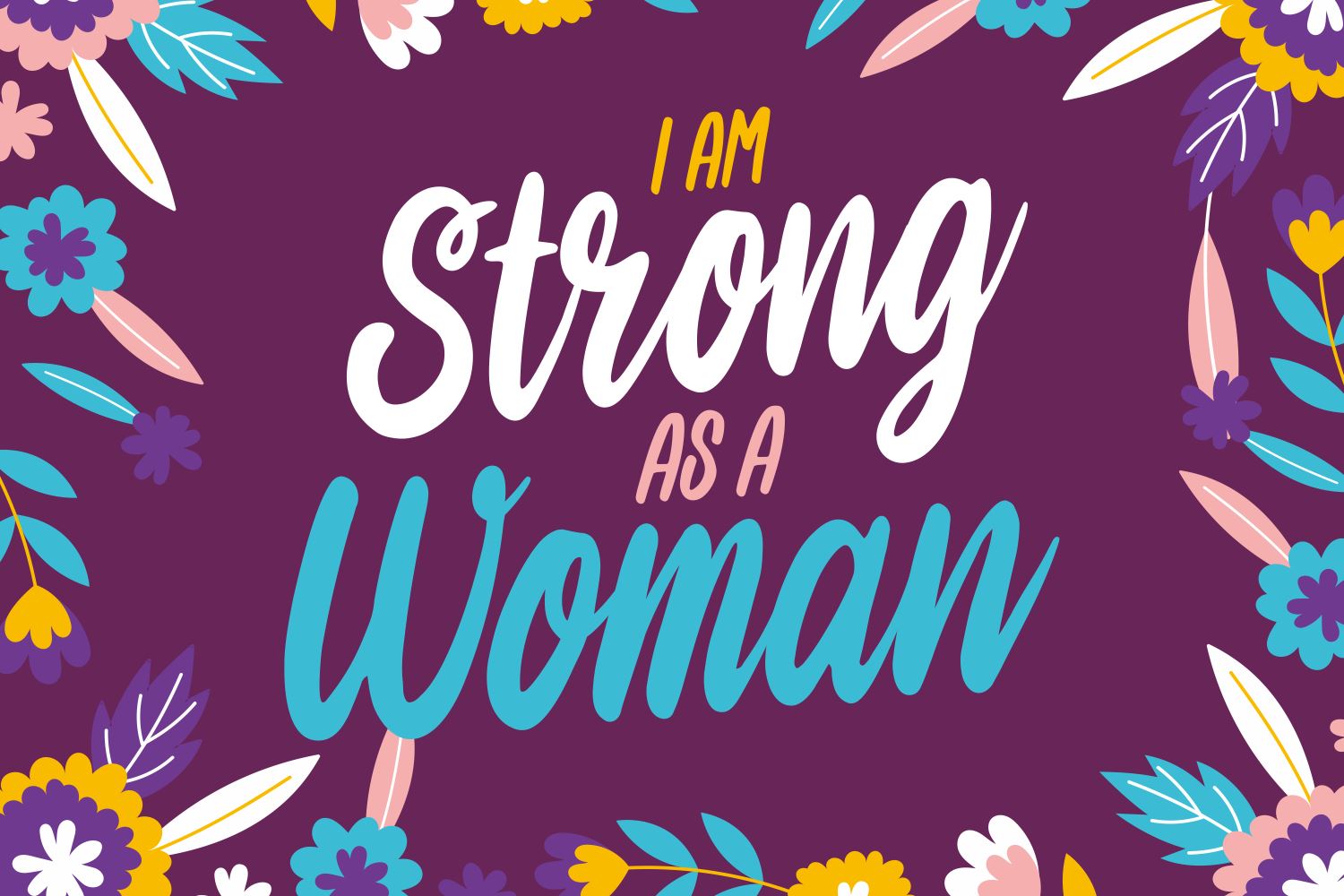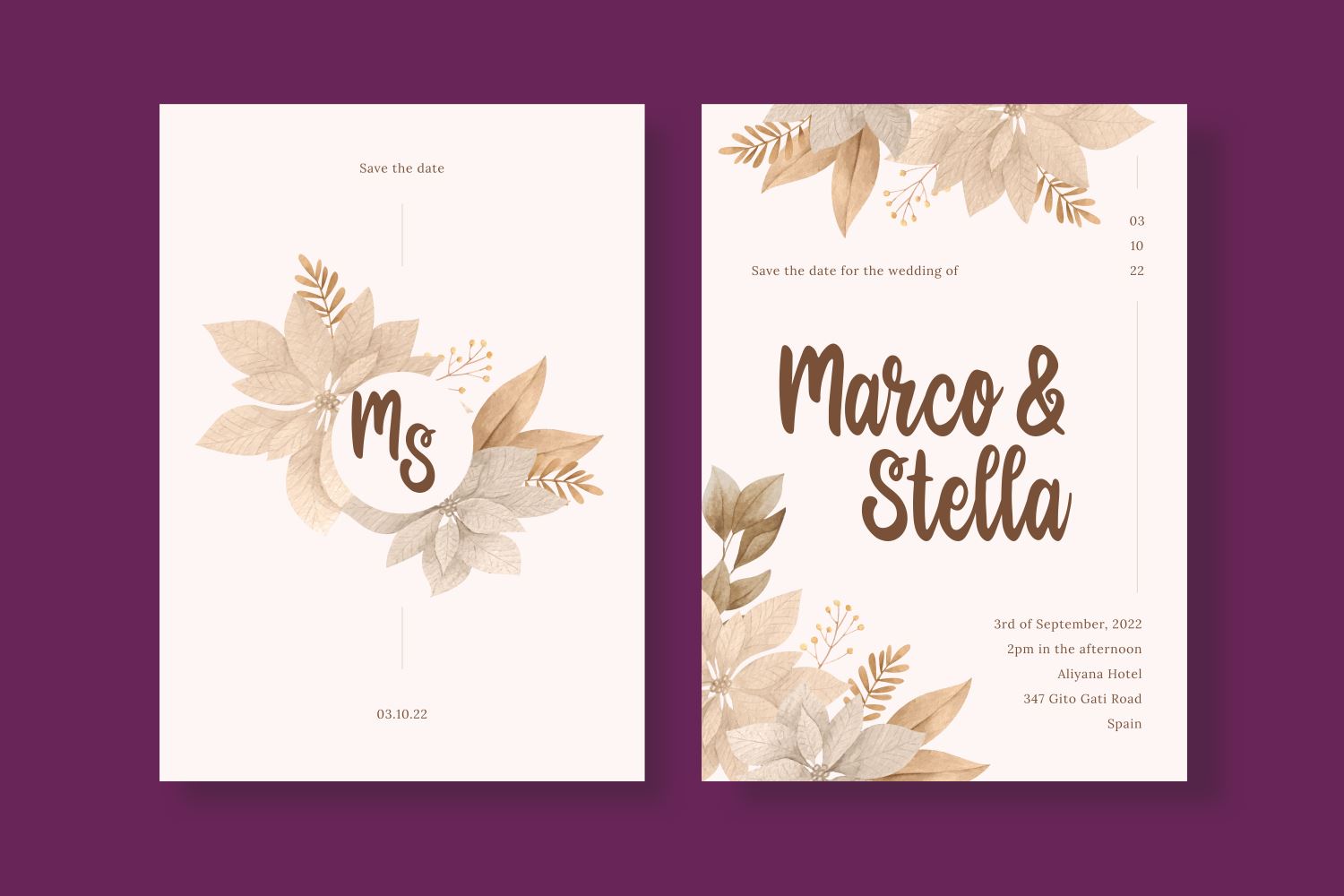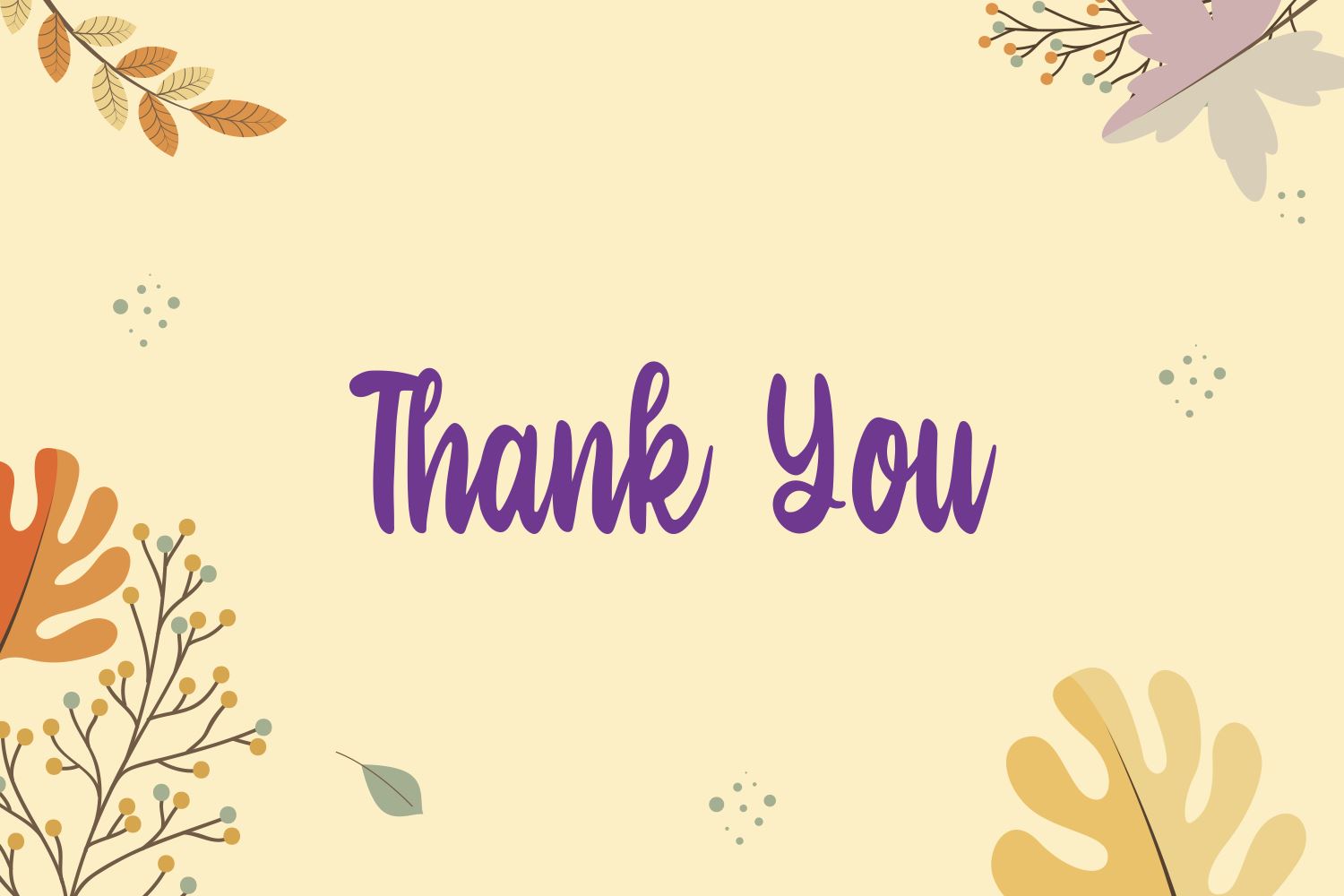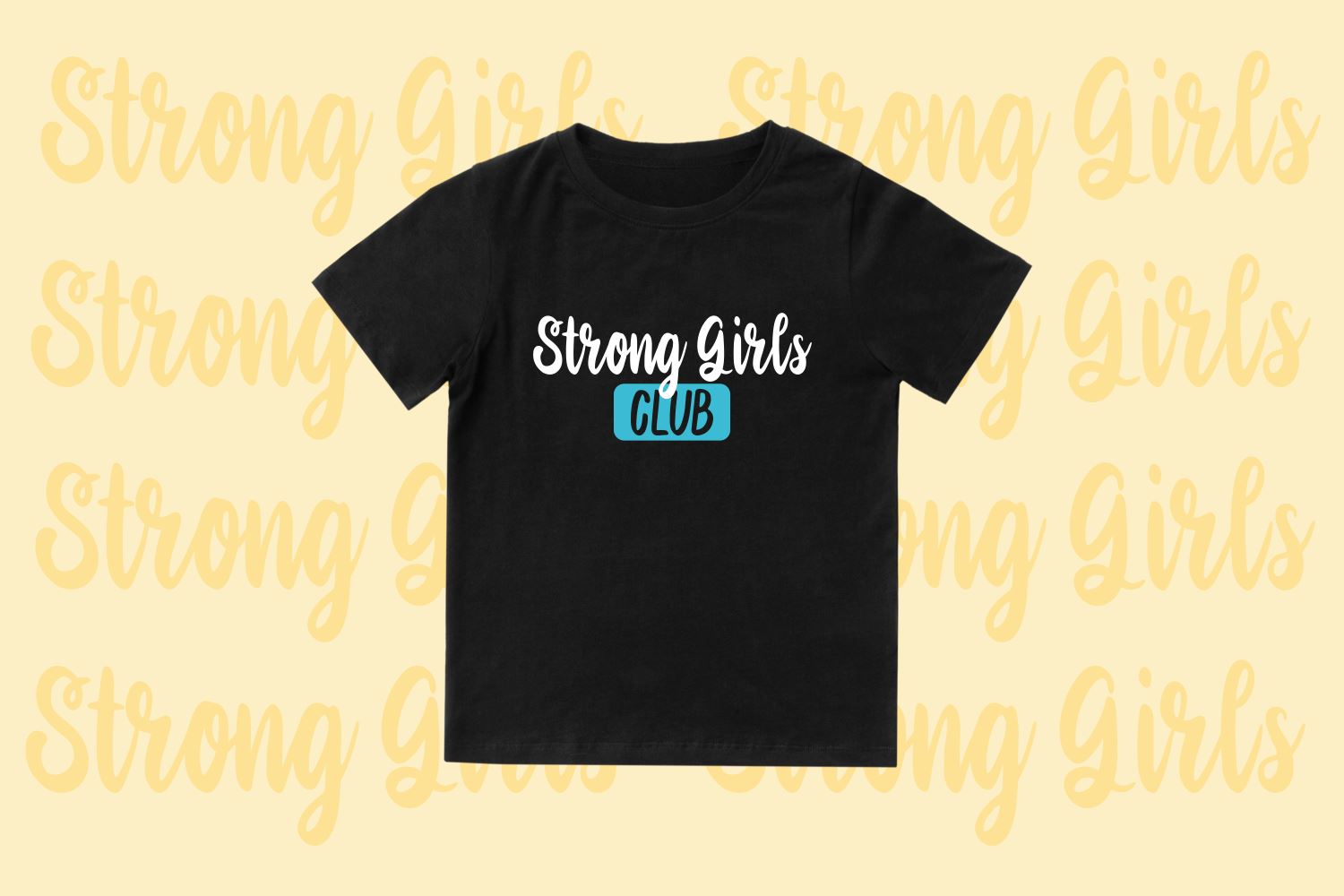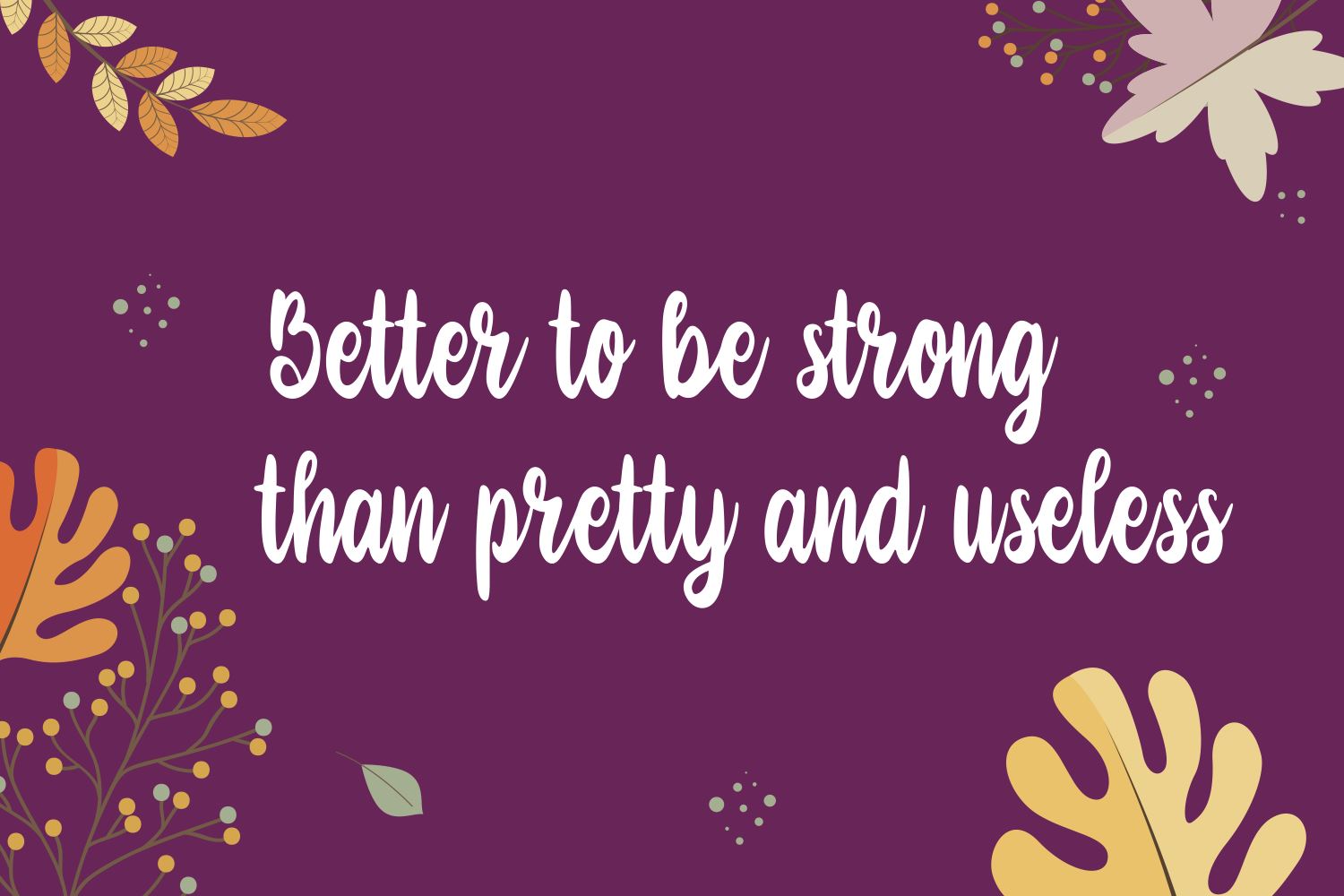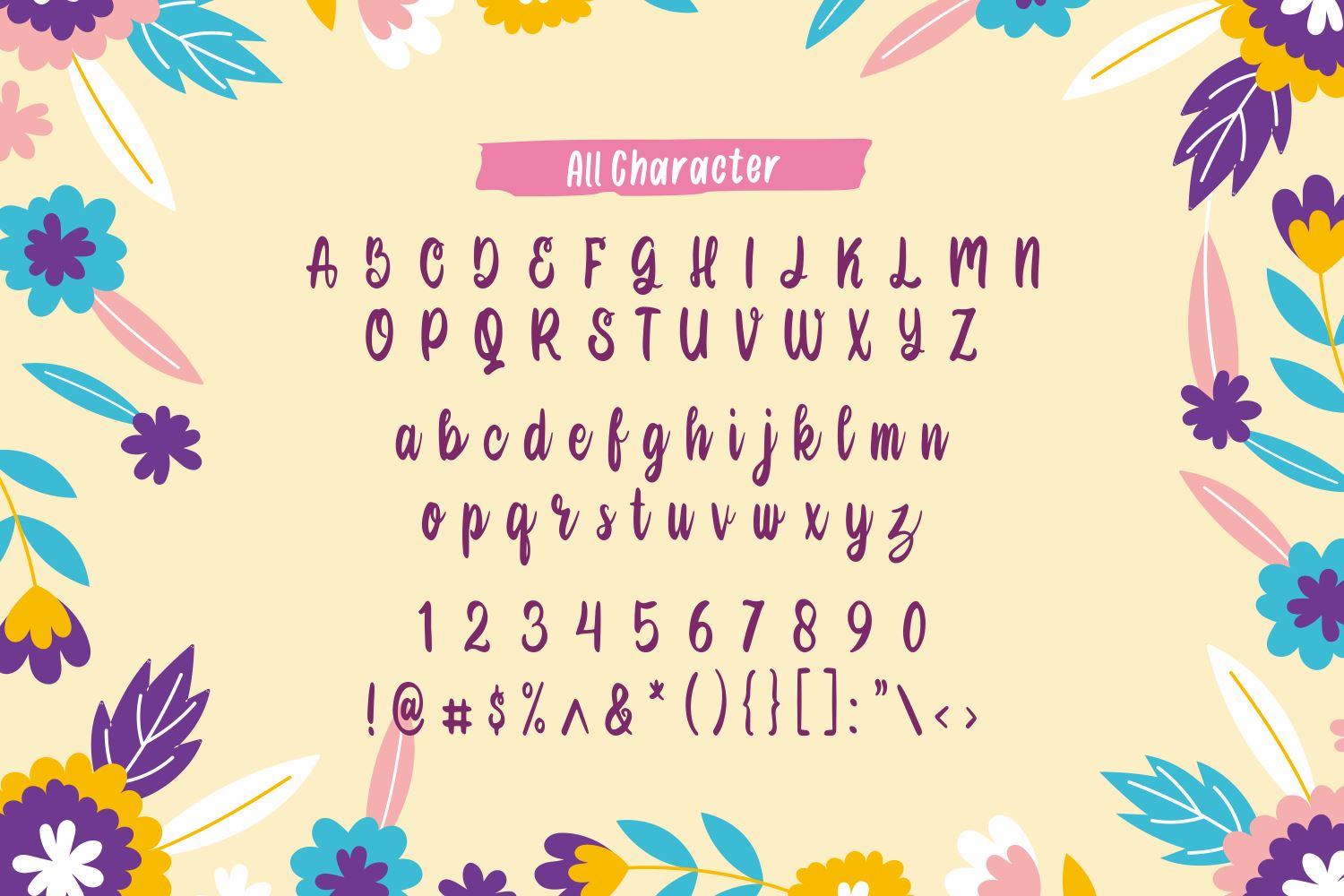
Deanita
About Deanita
Introducing Deanita Font by Forberas Club Deanita a Modern Handwritten Font. Deanita is perfect for book cover, product packaging, branding project, megazine, social media, wedding, or just used to express words above the background.This font includes TTF and OTF, This font also multilingual support.